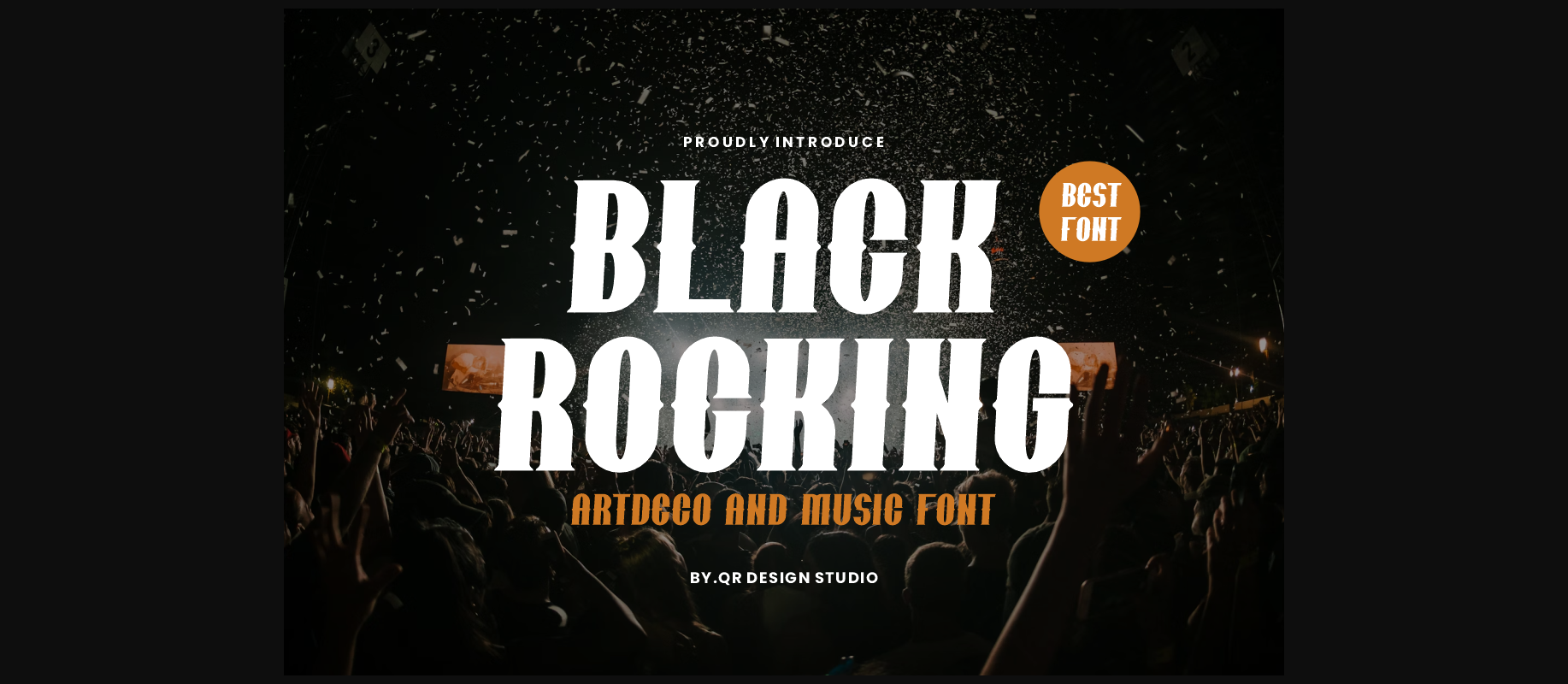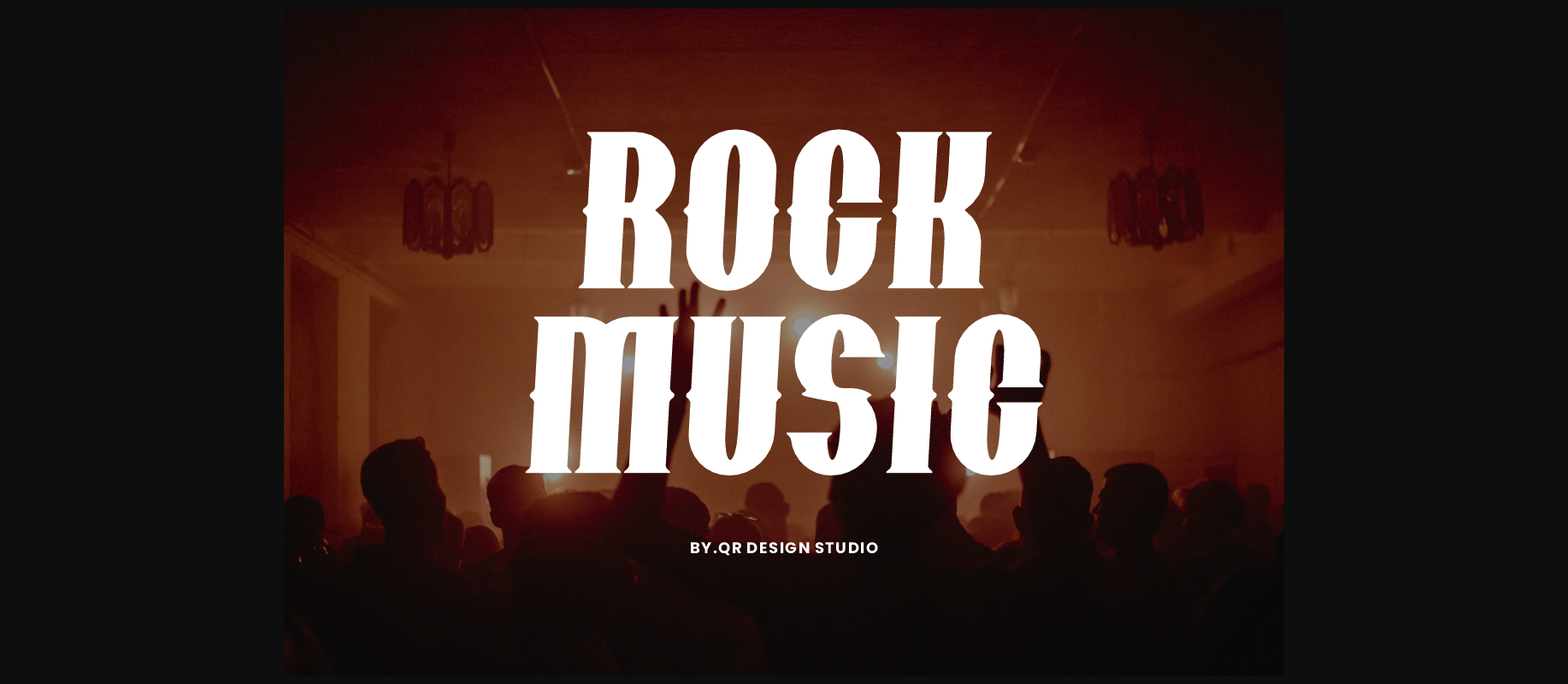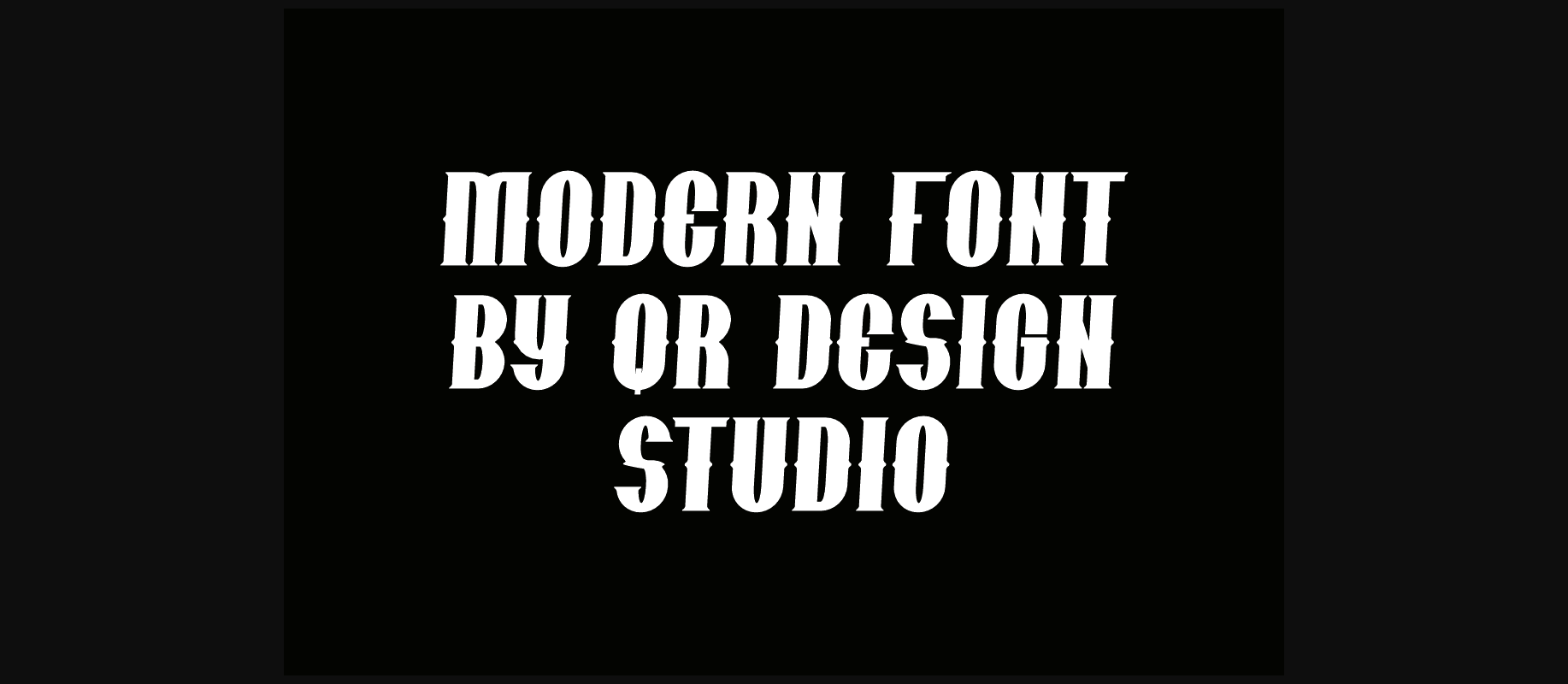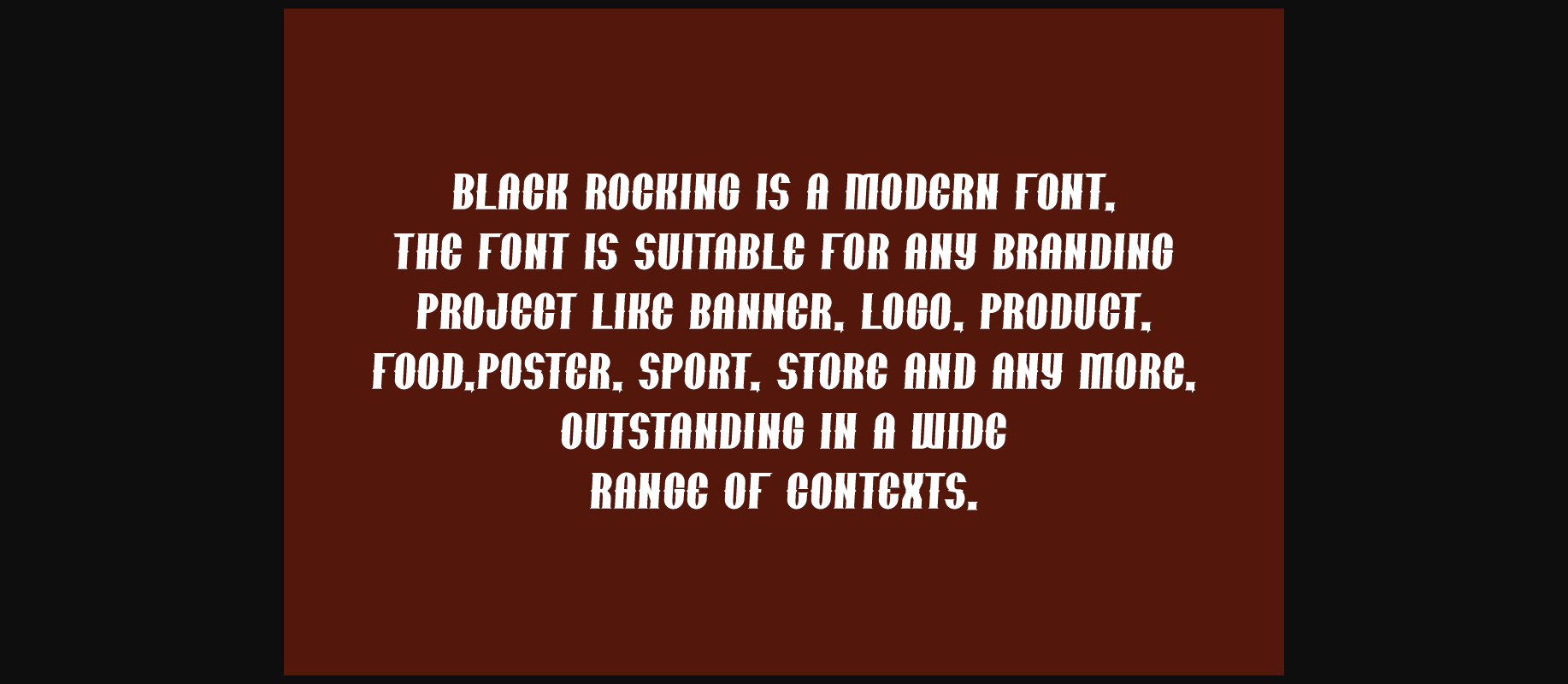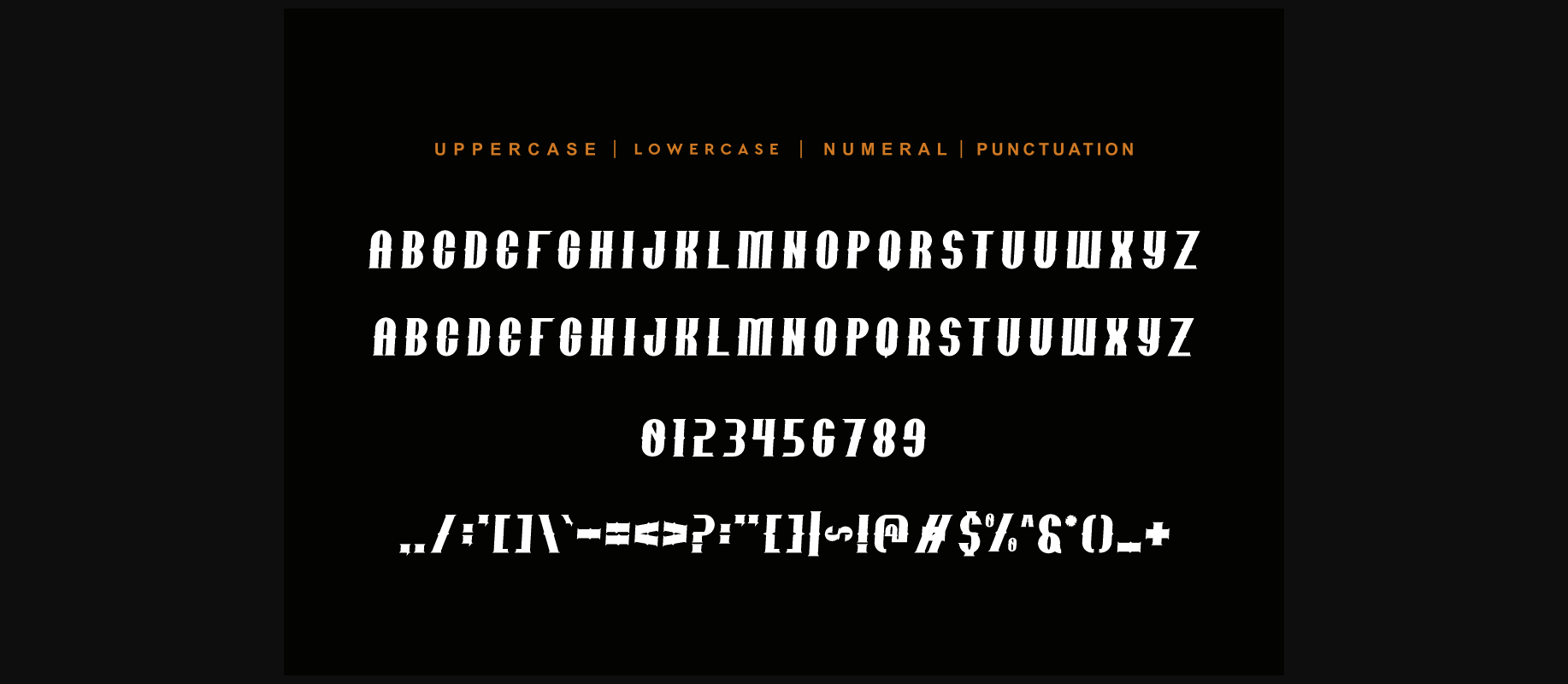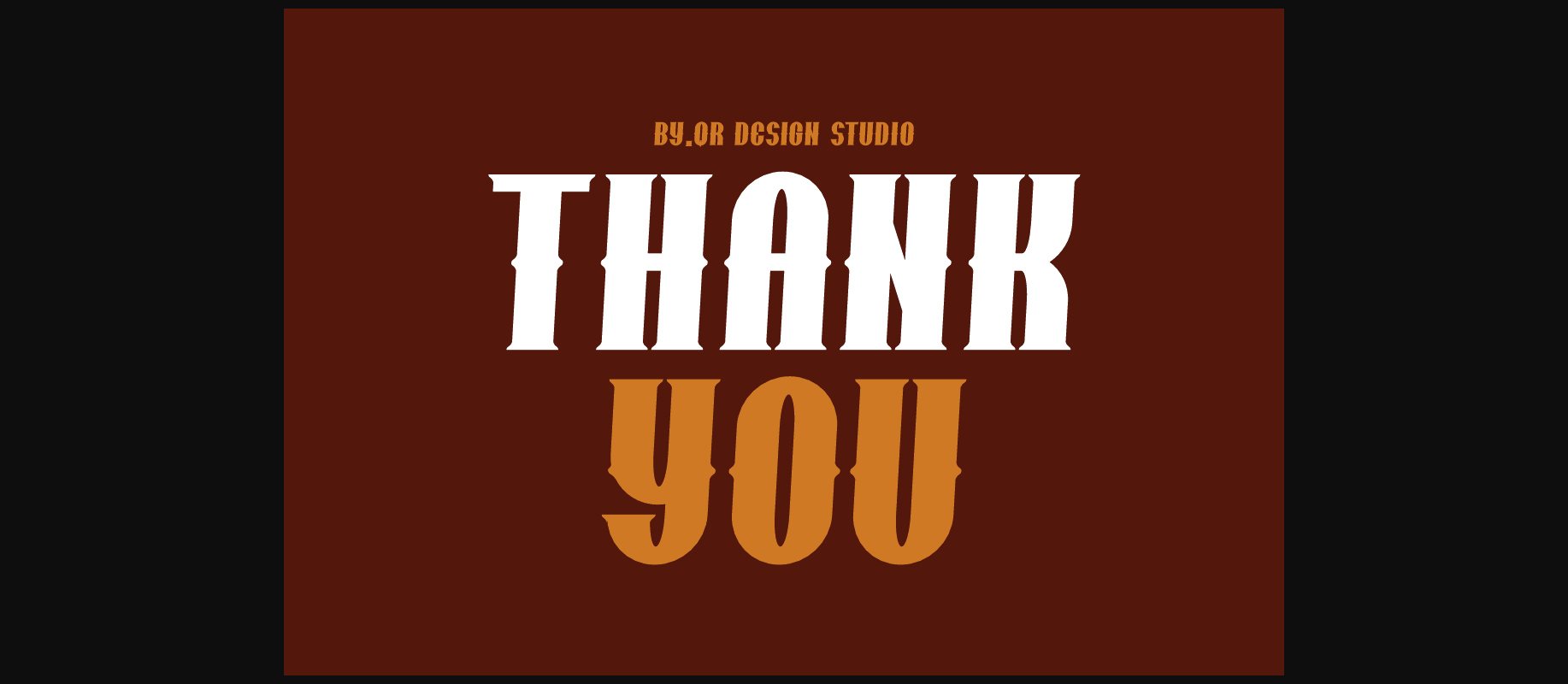
Black Rocking Font
About Black Rocking Font
Black Rocking is a bold and authentic decorative display font. It is suitable for any branding project like logo, sport, and many more. It will be outstanding in a wide range of contexts.